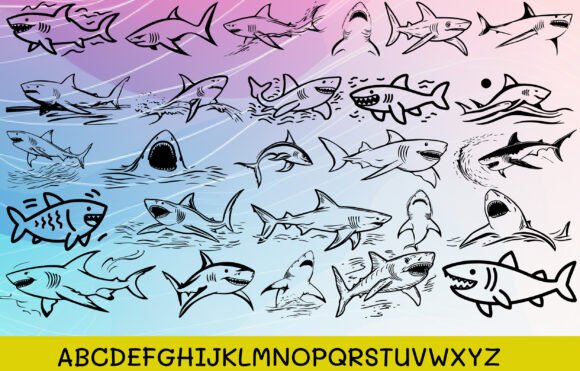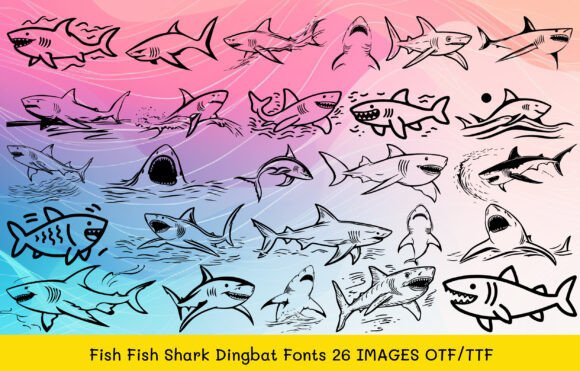
Introducing Fish Shark Font: A Fin-tastic Addition to Your Design Arsenal
Are you a designer, crafter, or DIY enthusiast looking for a unique and playful font to add a splash of fun to your projects? Look no further than the Fish Shark Font, a comprehensive set of 26 ocean-inspired designs that will make a big splash in your designs. In this article, we’ll dive into the world of Fish Shark Font, exploring its features, benefits, and uses, and show you why it’s a must-have for any creative looking to make a statement.
What is Fish Shark Font?
Fish Shark Font is a carefully curated set of 26 unique designs, each corresponding to a letter from A to Z. These designs feature a variety of fish and shark illustrations, ranging from cute and cartoonish to detailed and realistic. Whether you’re working on a graphic project, crafting a DIY masterpiece, or simply looking for a fun way to add some personality to your digital creations, Fish Shark Font has got you covered.
Key Features of Fish Shark Font
- 26 Unique Designs: Each letter from A to Z has its own distinct design, featuring a different fish or shark illustration.
- Ocean-Inspired: Perfect for aquatic-themed projects, from beach-inspired crafts to underwater adventures.
- Variety of Illustrations: From simple and cute to detailed and realistic, there’s a design to suit every style and preference.
Benefits of Using Fish Shark Font
So why choose Fish Shark Font for your next project? Here are just a few benefits of using this fantastic font:
- Adds a Touch of Whimsy: Fish Shark Font adds a playful, creative touch to your designs, making them stand out from the crowd.
- Perfect for Ocean-Themed Projects: Whether you’re working on a beach-themed craft or an underwater-inspired graphic project, Fish Shark Font is the perfect choice.
- Eases Design Process: With 26 pre-designed letters, Fish Shark Font saves you time and effort, allowing you to focus on the creative aspects of your project.
- Versatile: Use Fish Shark Font in a variety of projects, from digital graphics to handmade crafts.
Uses for Fish Shark Font
The possibilities are endless when it comes to using Fish Shark Font. Here are a few ideas to get you started:
- Graphic Design Projects: Use Fish Shark Font in your next graphic design project, from brochures to posters, to add a touch of fun and personality.
- DIY Crafts: Add a personal touch to your DIY crafts, from handmade cards to customized jewelry, with Fish Shark Font.
- Digital Art: Incorporate Fish Shark Font into your digital art, from illustrations to animations, to create a unique and eye-catching effect.
- Crafting: Use Fish Shark Font to create customized signs, banners, and other decorative items for your home or office.
In conclusion, Fish Shark Font is a fantastic addition to any designer’s or crafter’s arsenal. With its 26 unique, ocean-inspired designs, this font set is perfect for adding a touch of fun and personality to your projects. Whether you’re working on a graphic design project, crafting a DIY masterpiece, or simply looking for a creative way to express yourself, Fish Shark Font is the perfect choice. So why wait? Dive into the world of Fish Shark Font today and discover a whole new world of creative possibilities!